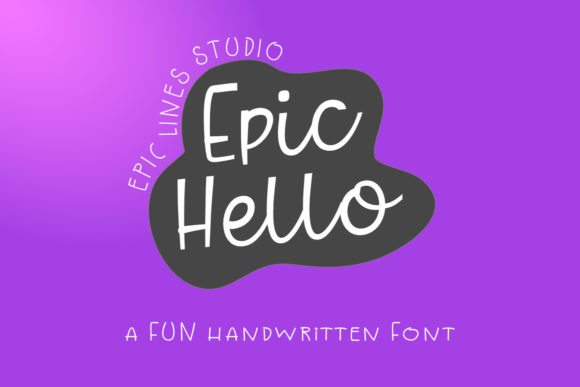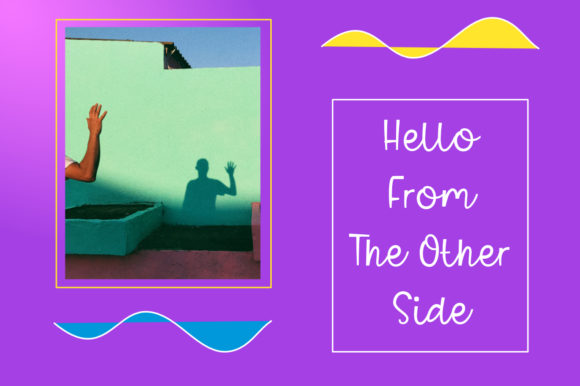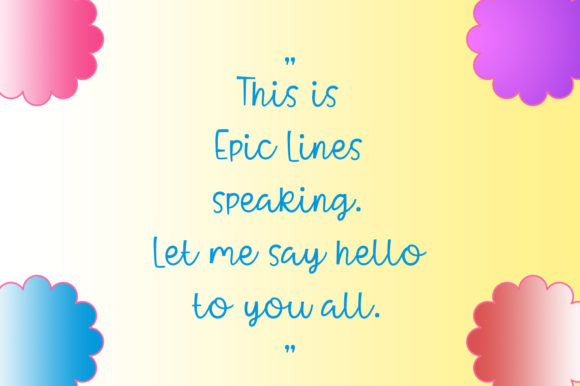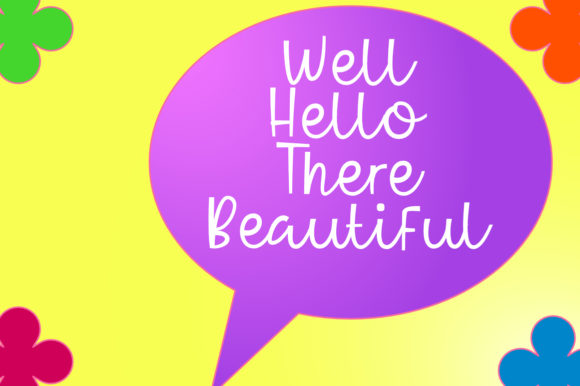
HomeScript FontsEpic Hello Font Script Fonts Epic Hello Font FacebookXPinterestWhatsApp Epic Hello Font Poster 2 Epic Hello Font Poster 3 Epic Hello Font Poster 4 About Epic Hello Font Epic Hello is a casual and friendly script with an easygoing and smooth feel. DOWNLOAD ON CREATIVE FABRICAThis font is sold and delivered by Creative Fabrica. Font Canyon may earn a commission if you buy through this link. People also explored Gokerog Font Quade Font Caytielo Font Moonlight Paradise Font Import Font Cedrika Font Hi Girls Font Font Andrea Font Pennyone Font 314 0 TagsEpic Hello Font Previous articleAquilland FontNext articleVigrand Font LEAVE A REPLY Cancel reply Comment: Please enter your comment! Name:* Please enter your name here Email:* You have entered an incorrect email address! Please enter your email address here Website: Save my name, email, and website in this browser for the next time I comment. Personal Use Free England Personal Use Free Read more about this font Burgie Personal Use Free Read more about this font Rina Personal Use Free Read more about this font Blue Highway Personal Use Free Read more about this font BLOG Free vs Paid Fonts: Why Investing in Premium Fonts Is Worth It Free vs Paid Fonts: Why Premium Fonts Are Worth It in 2025 The debate of free vs paid fonts continues in the design world. While... How to Cut Any Font on Cricut: Convert a Font to SVG (Free) Transform Your Website: Elevate Your Typography with 7 Best Web Font Generators To increase your work productivity, choose the most readable fonts.